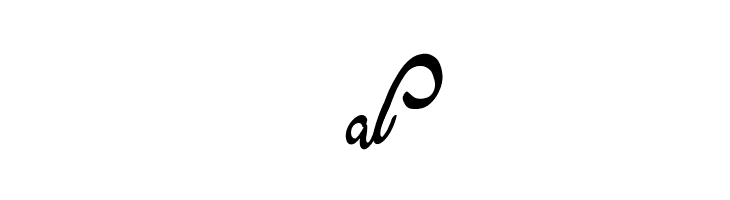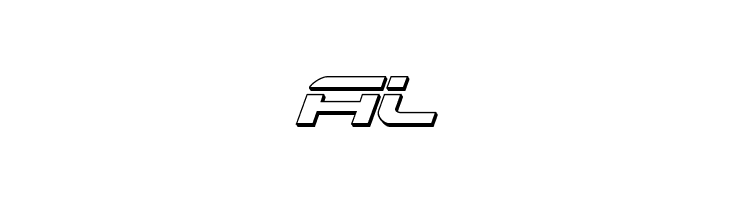
• Alexis Bullet Italic
A futuristic italic font with bold outlines and geometric shapes.
• Alexis Condensed
A futuristic, geometric font with sharp angles and a condensed style.
• Alexis Condensed Italic
A modern, condensed italic font with bold, angular strokes.
• Alexis Expanded
A futuristic, geometric font with bold, angular letterforms and expanded width.
• Alexis Expanded
A futuristic, geometric font with sharp angles and clean lines.
• Alexis Expanded Italic
A sleek, italicized, and expanded font with a futuristic design.
• Alexis Gradient
A futuristic font with a gradient effect created by horizontal lines.
• Alexis Gradient Italic
A futuristic italic font with a gradient line effect.
• Alexis Grunge
A bold, angular font with a modern, industrial style.
• Alexis Halftone
A bold, futuristic font with a halftone effect and geometric design.
• Alexis Halftone Italic
A dynamic, italicized font with a futuristic halftone effect.
• Alexis Italic
• Alexis Laser
A futuristic, geometric font with sharp angles and a sleek design.
• Alexis Laser
A futuristic, geometric font with sharp angles and clean lines.
• Alexis Laser Italic
A futuristic, italicized font with sharp angles and a bold, geometric design.
• Alexis Leftalic
A bold, futuristic font with angular, slanted characters.
• Alexis Marie
A modern, rounded sans-serif font with clean lines and balanced spacing.
• Alexis Regular
A futuristic, geometric font with sharp angles and clean lines.
• Alexis Semi-Italic
A modern, semi-italic font with a bold, tech-inspired design.
• Alexis__Handwriting_Font_1.0
• AlexisScriptOpti
An ornate, calligraphy-inspired font with sharp lines and elegant curves.
• Alexisv2
• AlexsBubbles